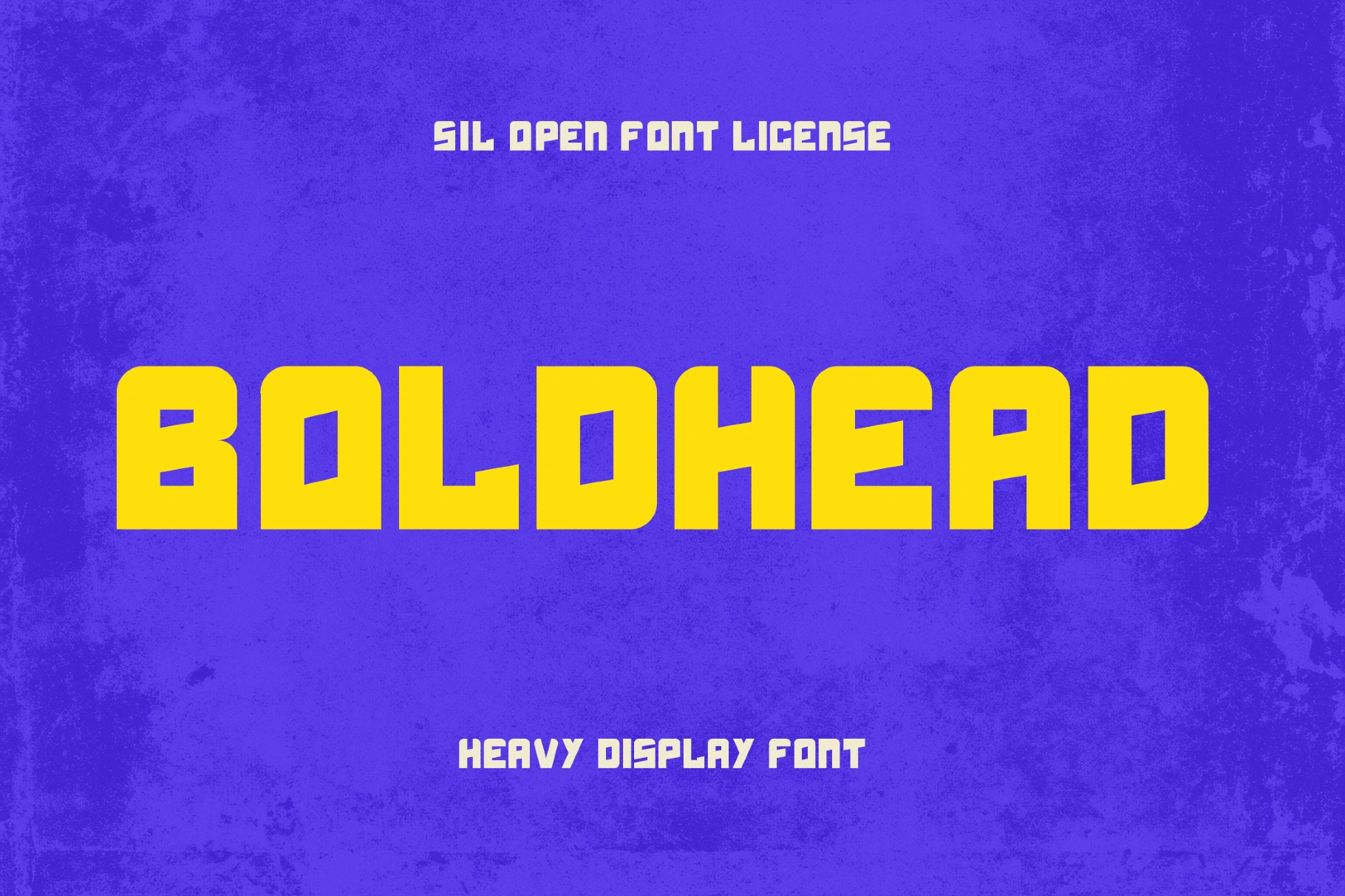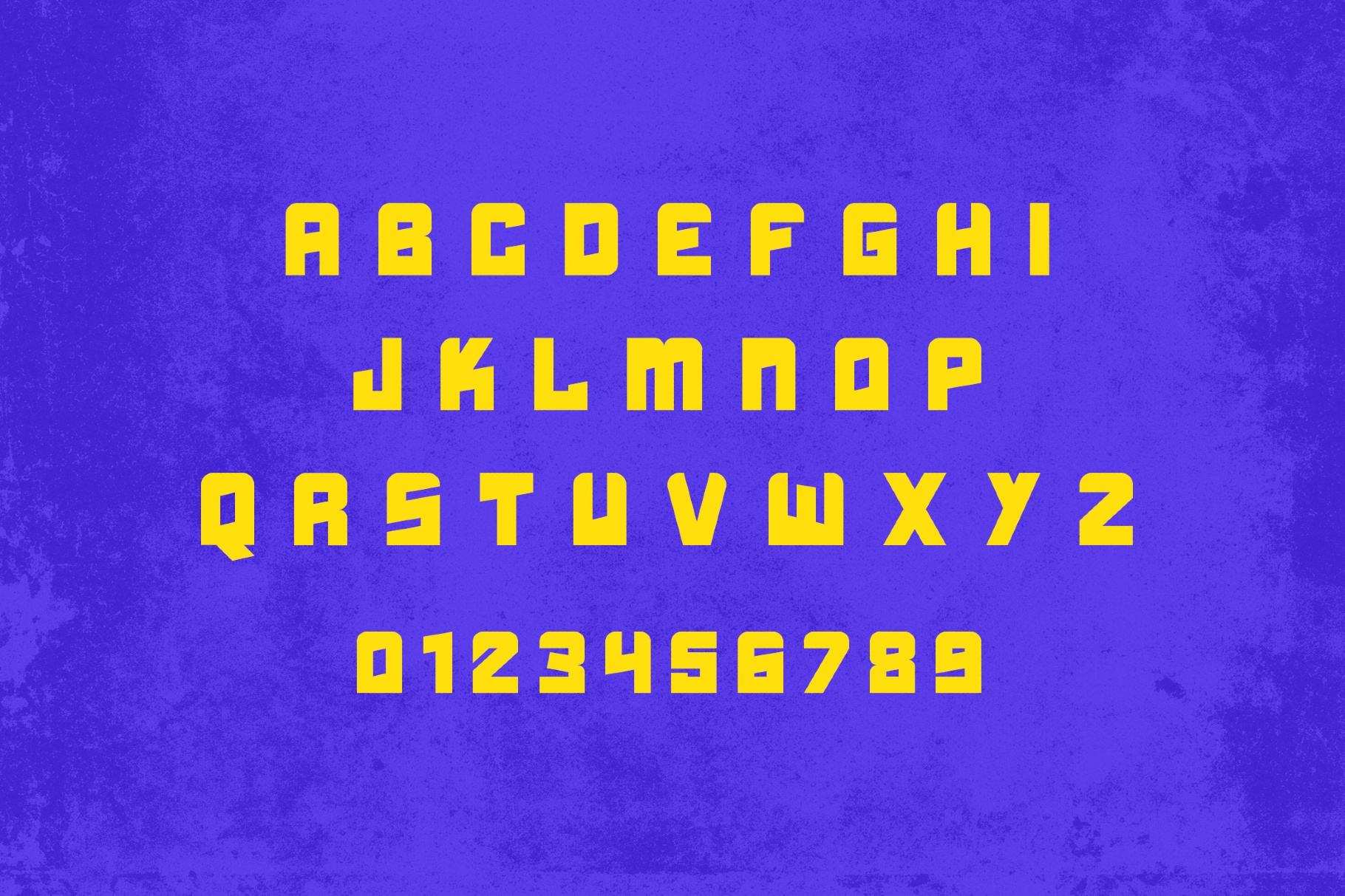
Boldhead Font
Boldhead
It is a heavy display font with hard angles and compact blocks, reminiscent of 1980s arcade marquees and comic-book title lettering. You can use it for headline typography, brand marks, poster campaigns, packaging fronts, game and app title screens, directional signage, and punchy social graphics.